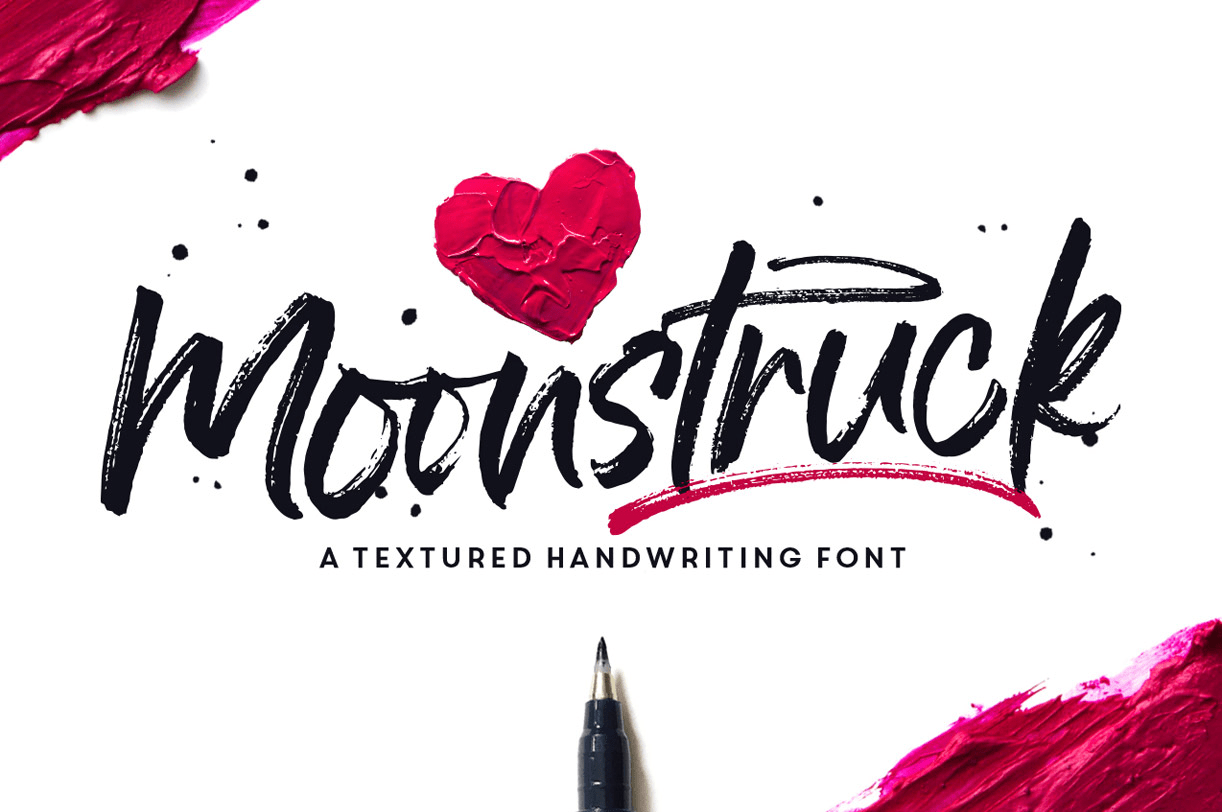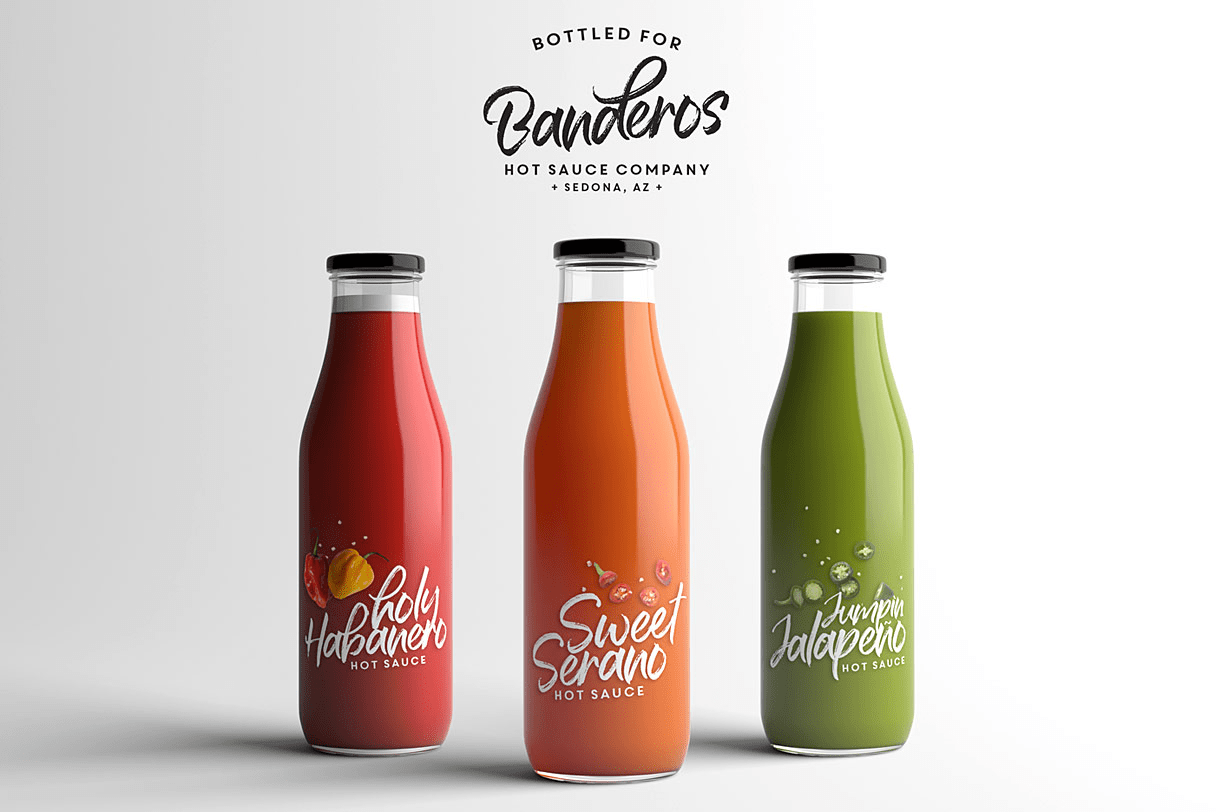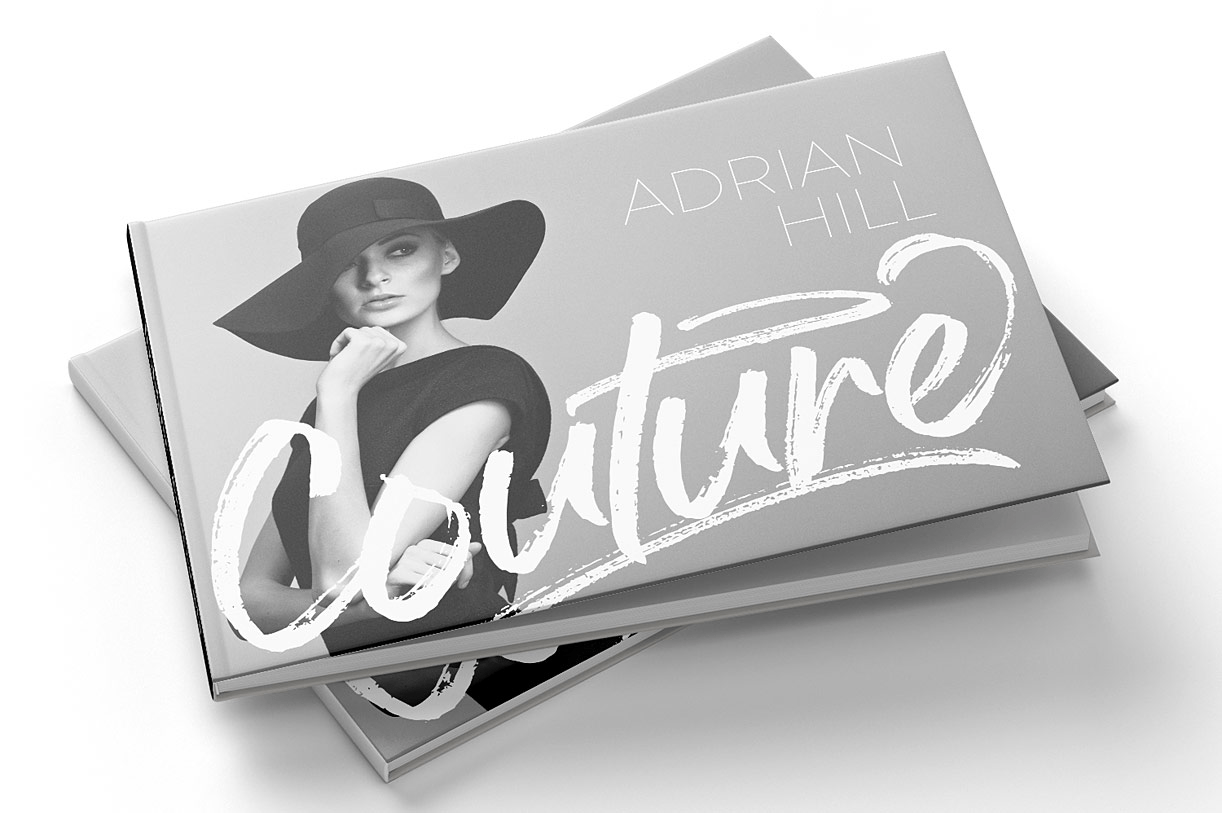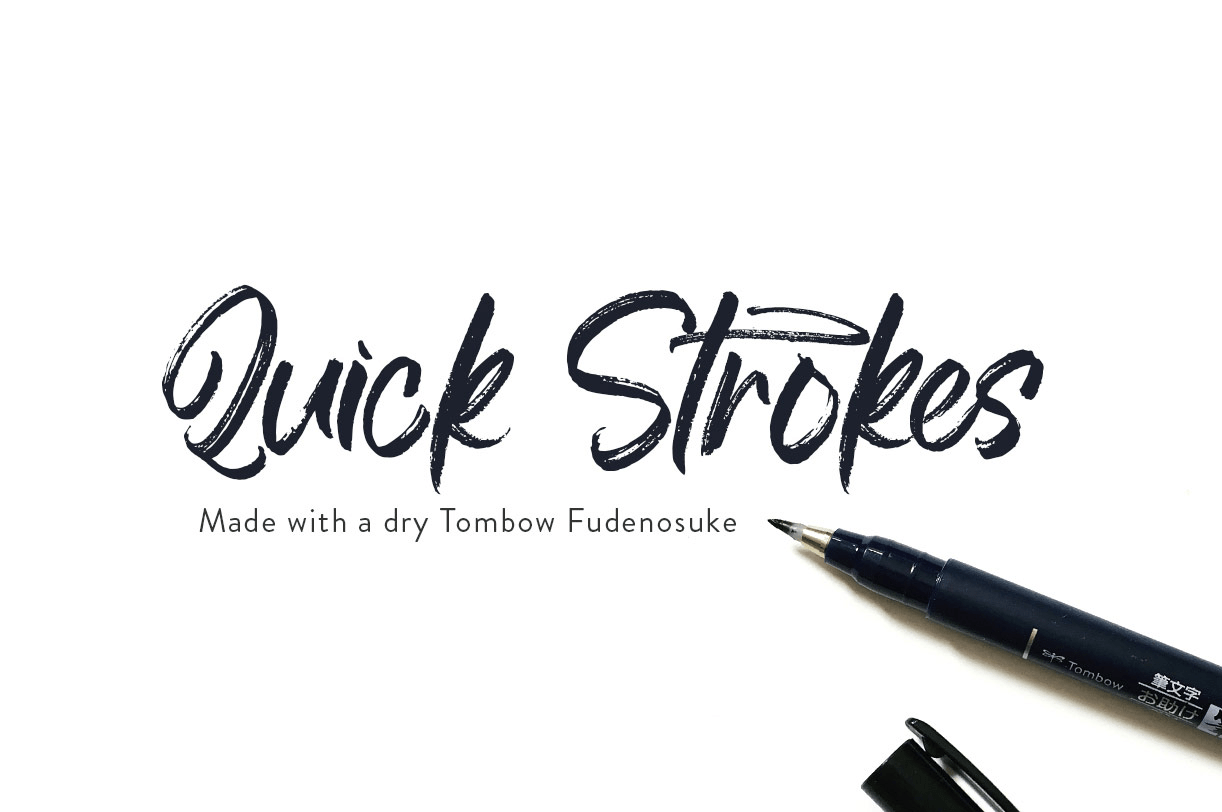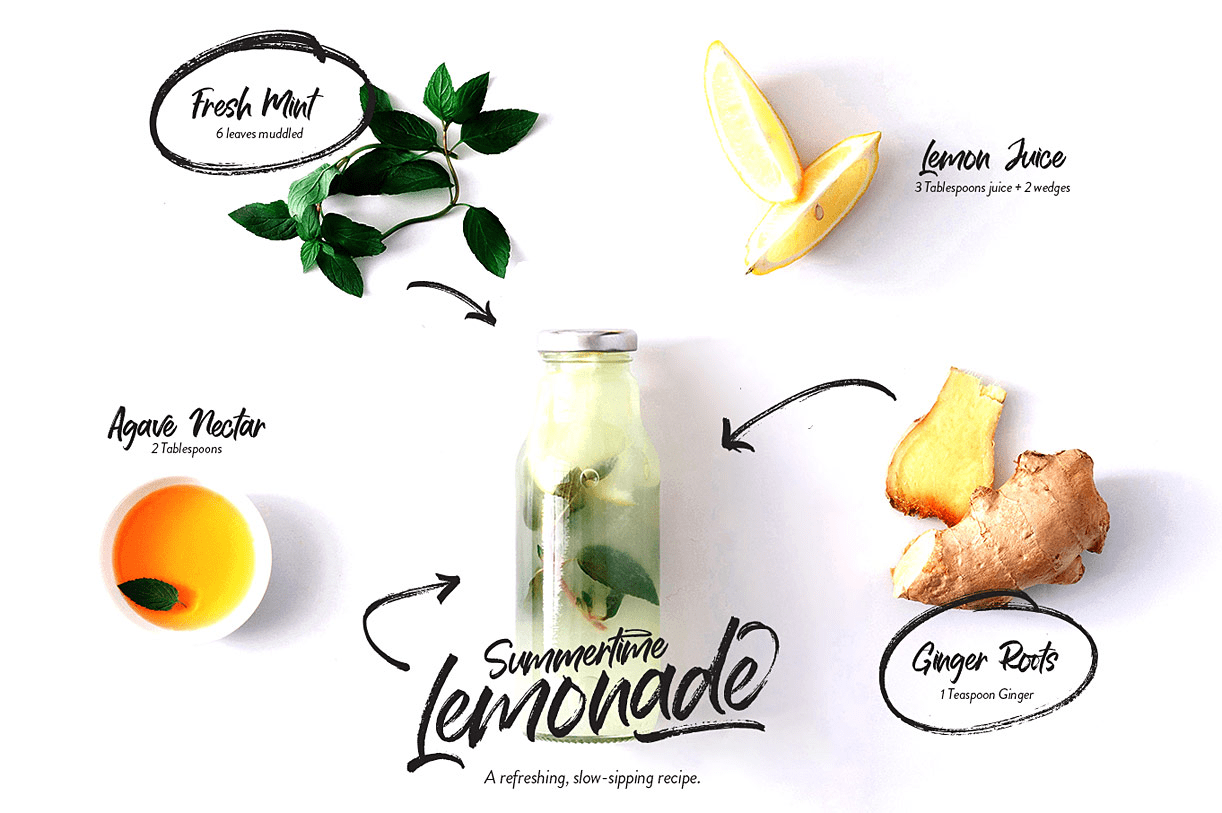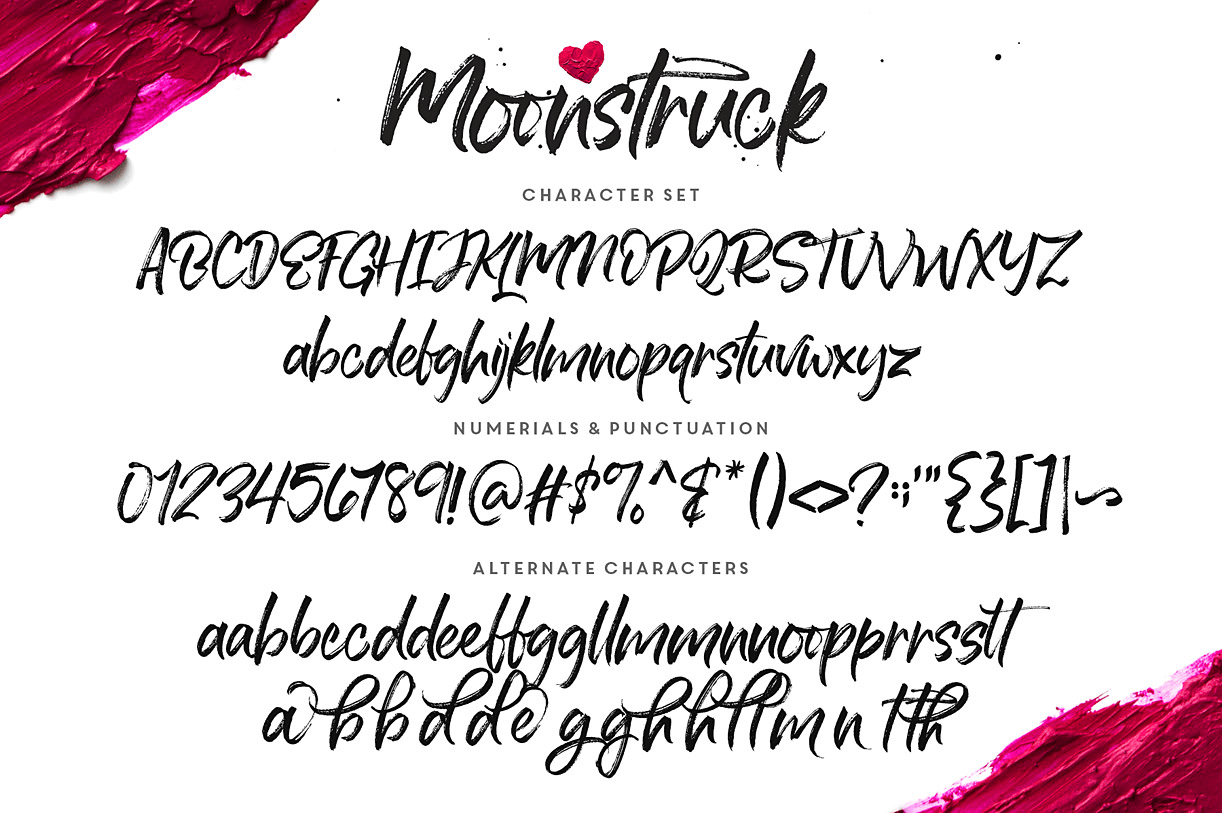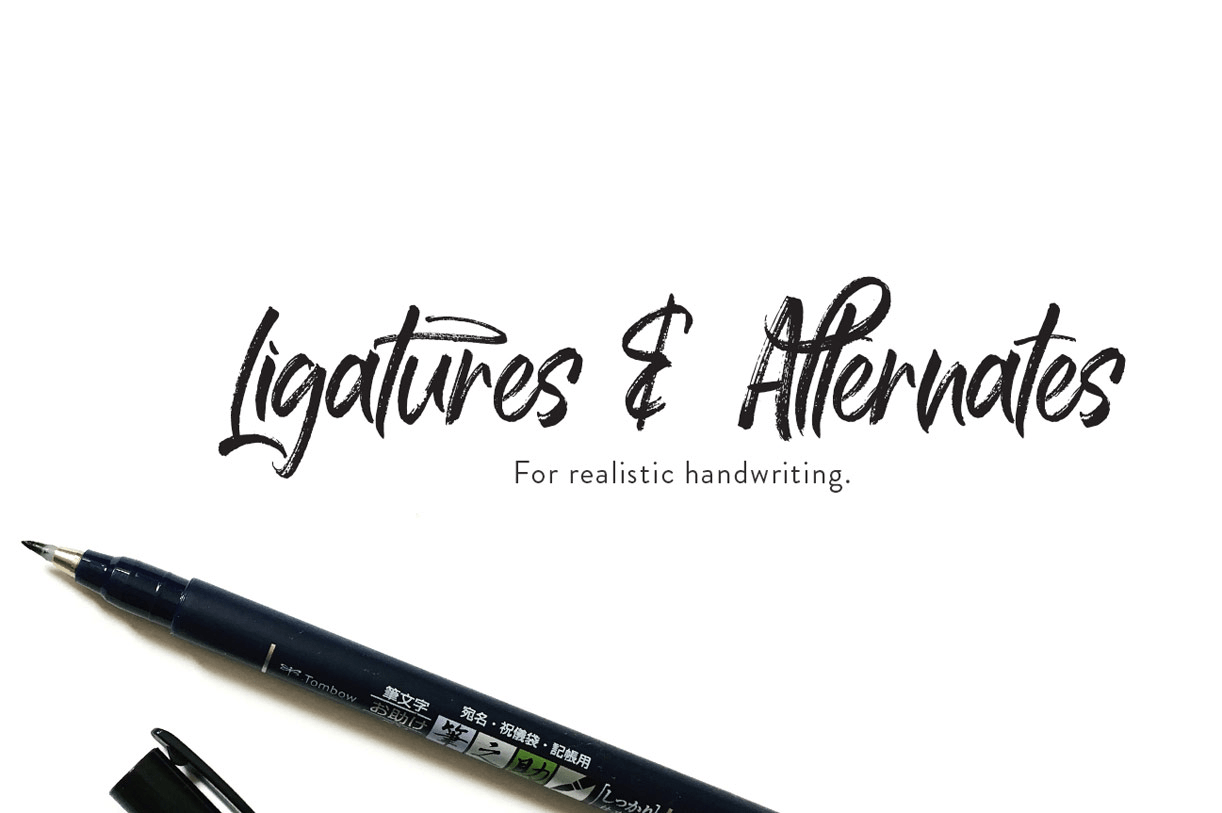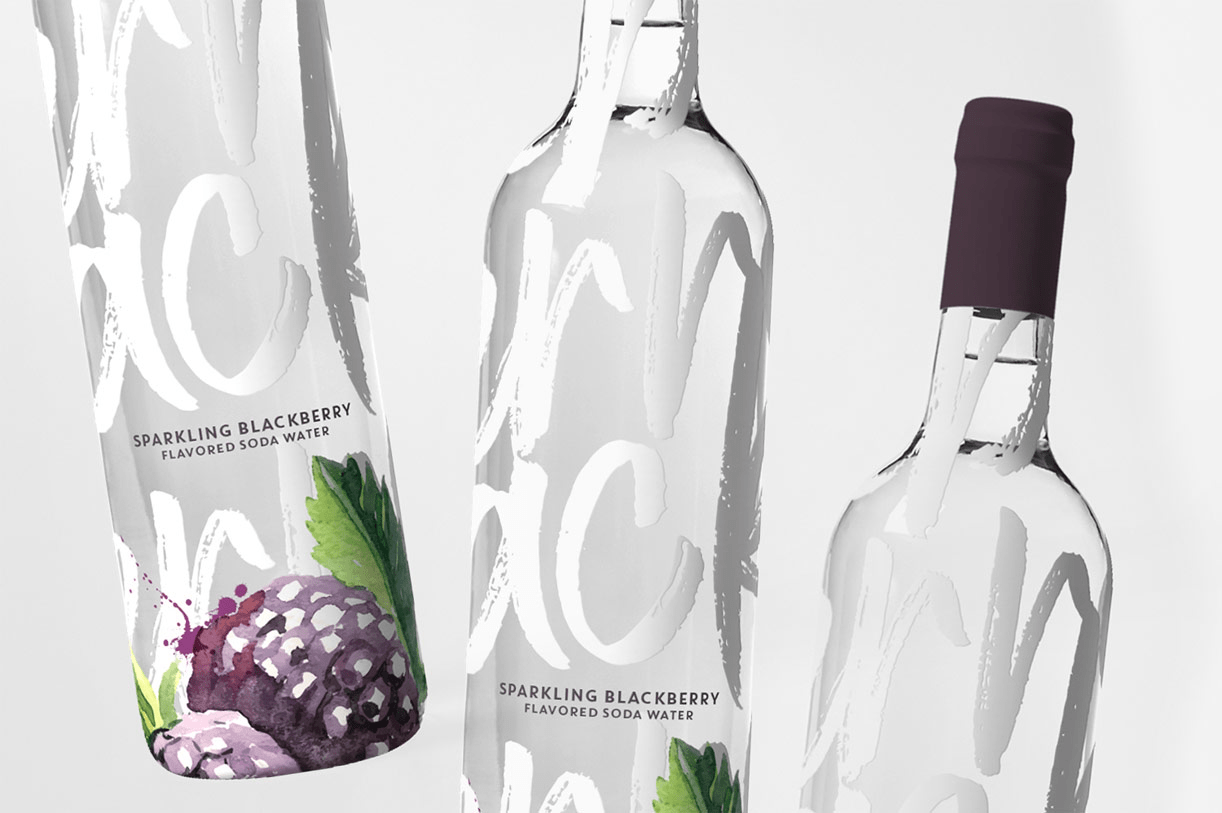
Moonstruck
Buy NowIntroducing Moonstruck! A quick and sassy handwriting font, made with a dry Tombow Fudenosuke. Use Moonstruck on branding, magazines, product packaging, editorials, advertising campaigns, book covers and more!
Moonstruck Handwriting - A hand-written typeface with upper and lowercase characters, multilingual support, ligatures, alternates and end characters.
Moonstruck Slanted - An extra italic version of Monnstruck, containing ligatures, alternates and end characters.
Moonstruck Swashes, Arrows, and Circles - A bonus set of 29 hand-drawn extras to accent your work for an authentic, handwriting feel. All characters can be accessed with a standard keyboard (No Glyphs Panel required).